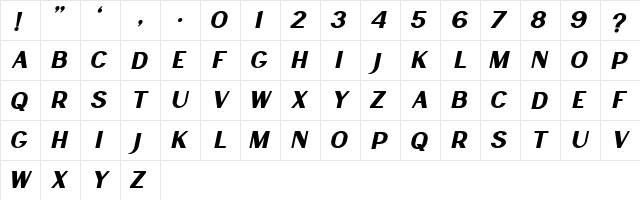
Lancaste Sans Slant Demo Regular
| Foundry | Runsell Studio |
| Designer | Edi Gunawan |
Design Context for Lancaste Sans Slant Demo Typeface
Lancaste Sans Slant Demo takes a measured approach to typography — its balanced proportions and neutral character make it a reliable workhorse for both digital and print work.